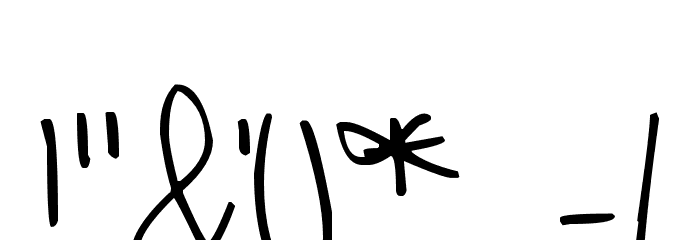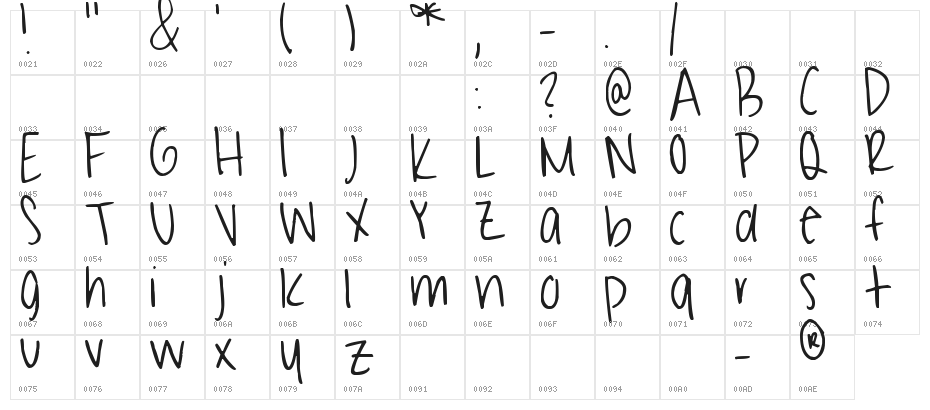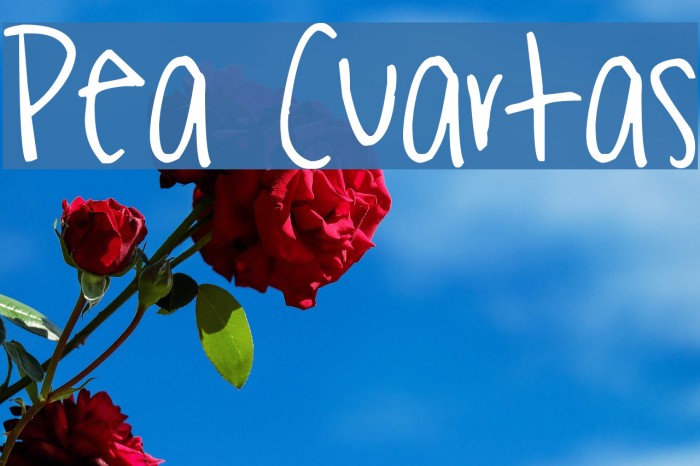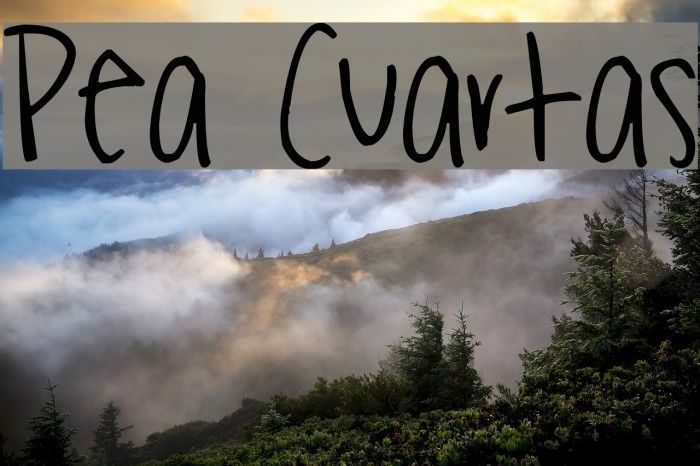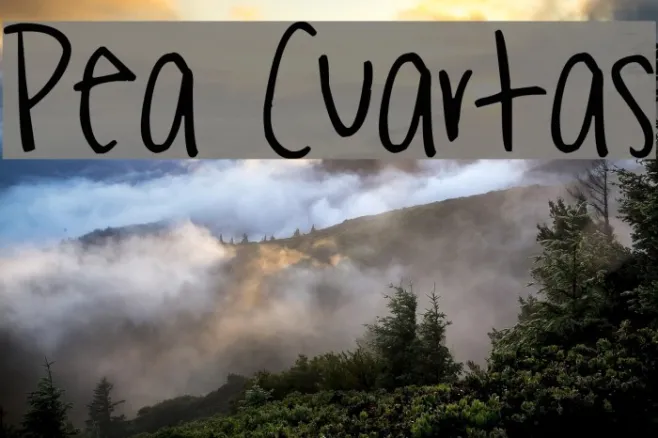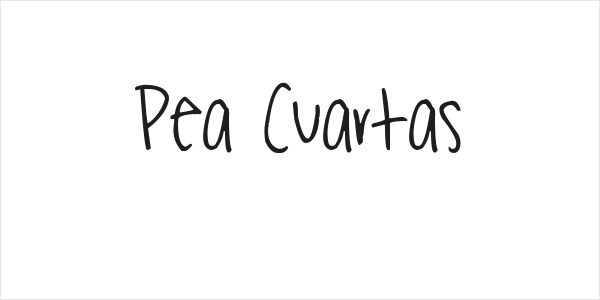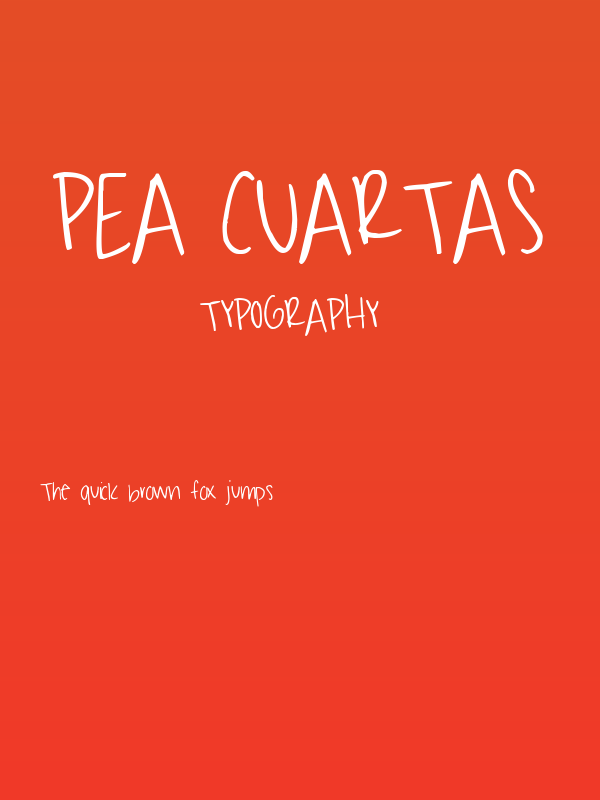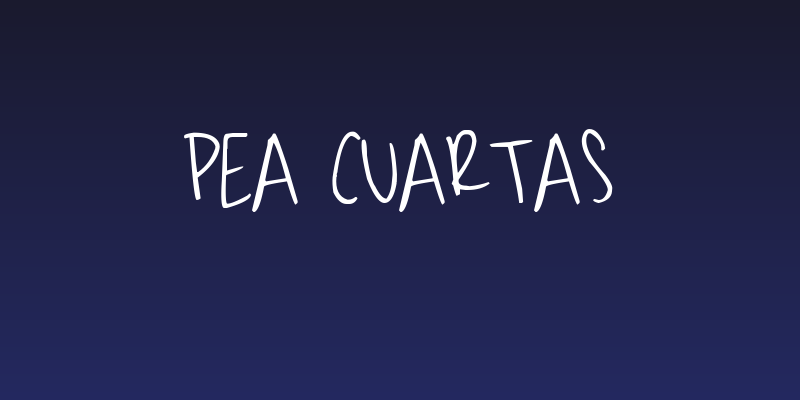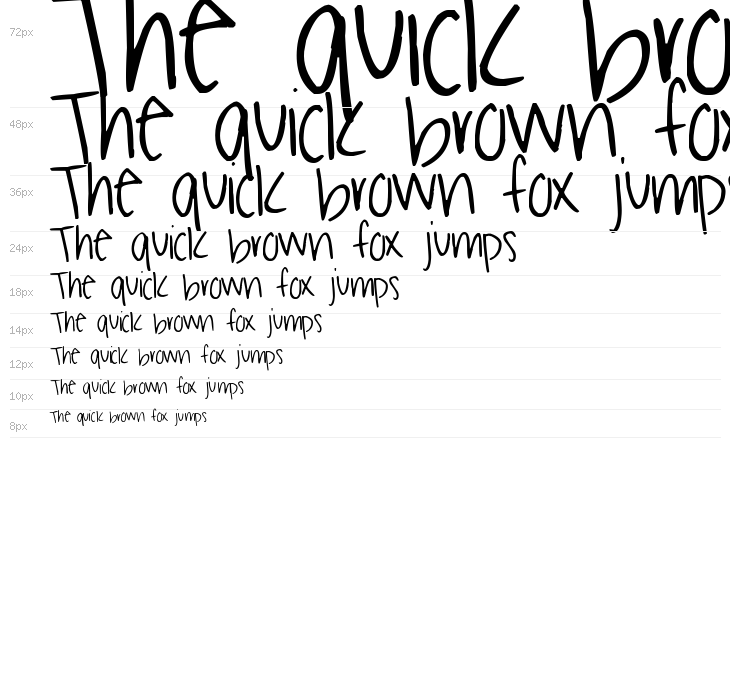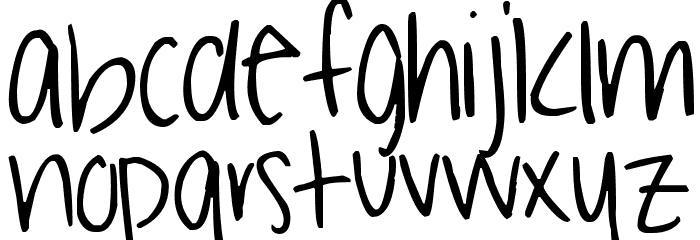
Pea Cuartas Font
Pea Cuartas Description
This font features a playful and casual handwritten style, characterized by its irregular and spontaneous letterforms. The uppercase and lowercase letters exhibit a consistent flow, with a slightly tilted orientation that adds to its informal charm. The strokes are bold and confident, giving the font a strong presence. The characters are well-spaced, maintaining readability while conveying a sense of personal touch. This font includes a full set of uppercase and lowercase letters, numbers, and a selection of special characters, making it versatile for various design needs.
| Use Case | Headlines, Informal text, Personal projects |
| Proposed Projects | Ideal for personal projects, greeting cards, social media graphics, and informal branding. |